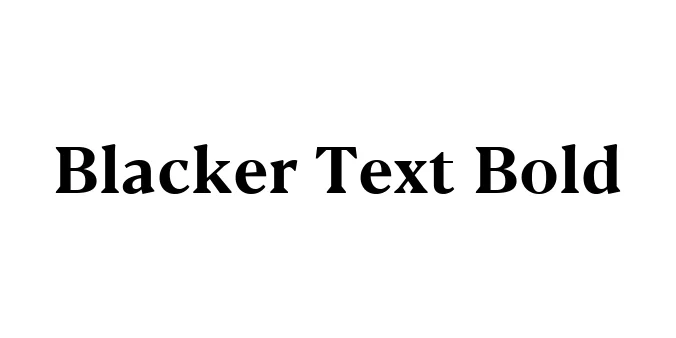
Blacker Text Bold
Designed by Cosimo Lorenzo Pancini and Andrea Tartarelli
Blacker Text Bold is a sophisticated wedge serif typeface designed by Cosimo Lorenzo Pancini and Andrea Tartarelli for Zetafonts. As part of the larger Blacker family, this "Text" variant was specifically engineered to improve legibility in smaller point sizes while retaining the sharp, high-contrast personality of the original display version. Its design language balances aggressive angles with elegant curves, creating a unique visual rhythm.
The typeface features heavy, triangular serifs and a vertical axis that draws inspiration from the 1970s editorial style, often referred to as the "evil serif" genre. The Bold weight provides a powerful typographic voice, making it an excellent choice for modern editorial design, high-end branding, and digital platforms that require a touch of historical elegance combined with contemporary precision.
Blacker Text Bold Best Uses
Perfect for magazine layouts and long-form articles that need a distinctive character.
Ideal for luxury brand identities and sophisticated logo designs.
Effective for high-impact headlines and readable body text on digital interfaces.
Adds a sense of authority and elegance to print and digital ads.